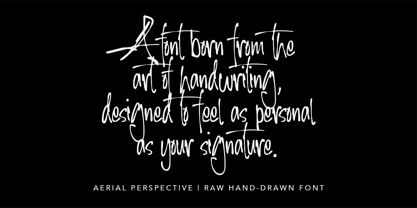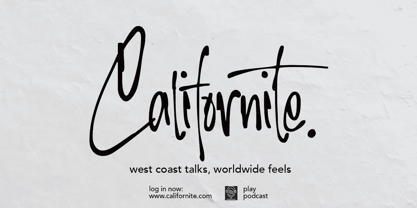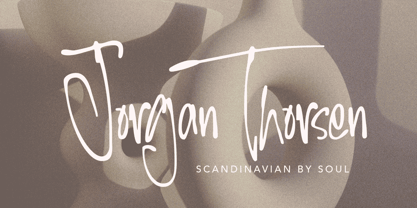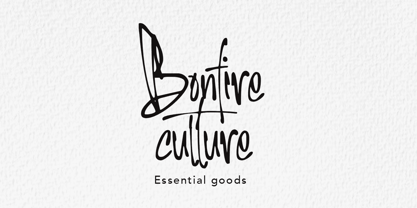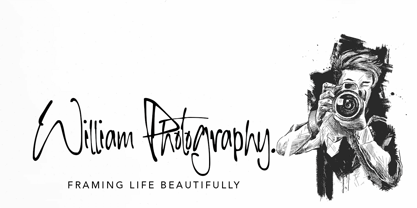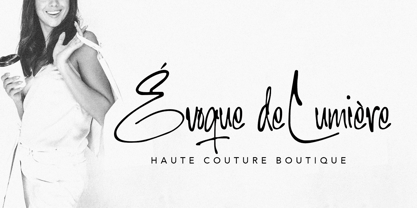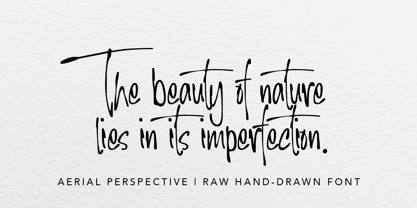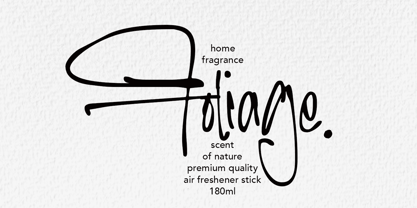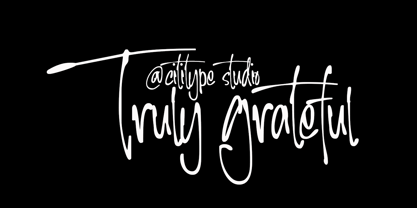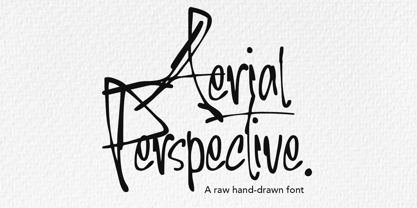
Aerial Perspective
by MMMA Creative
The Aerial Perspective Font Family was designed by Muhammad Mevlana Maliq Azizi and published by MMMA Creative. Aerial Perspective contains 1 styles. More about this family
Aerial Perspective is a handcrafted font that captures the spirit of raw, expressive handwriting. With its organic forms and sticky ink-like texture, this font brings a natural, slightly imperfect charm—just like writing with a real pen on paper.
Each letter flows with a gentle rhythm, full of subtle imperfections that give it life and honesty. Carefully crafted ligatures mimic the connections found in real handwriting, creating smooth transitions and a handwritten feel that feels truly personal.
Whether you're designing book covers, logos, posters, or heartfelt quotes, Aerial Perspective adds a layer of warmth and emotion without trying too hard. It’s bold in character, but soft in attitude—making it a versatile choice for expressive branding, editorial layouts, and social content that needs a touch of humanity.